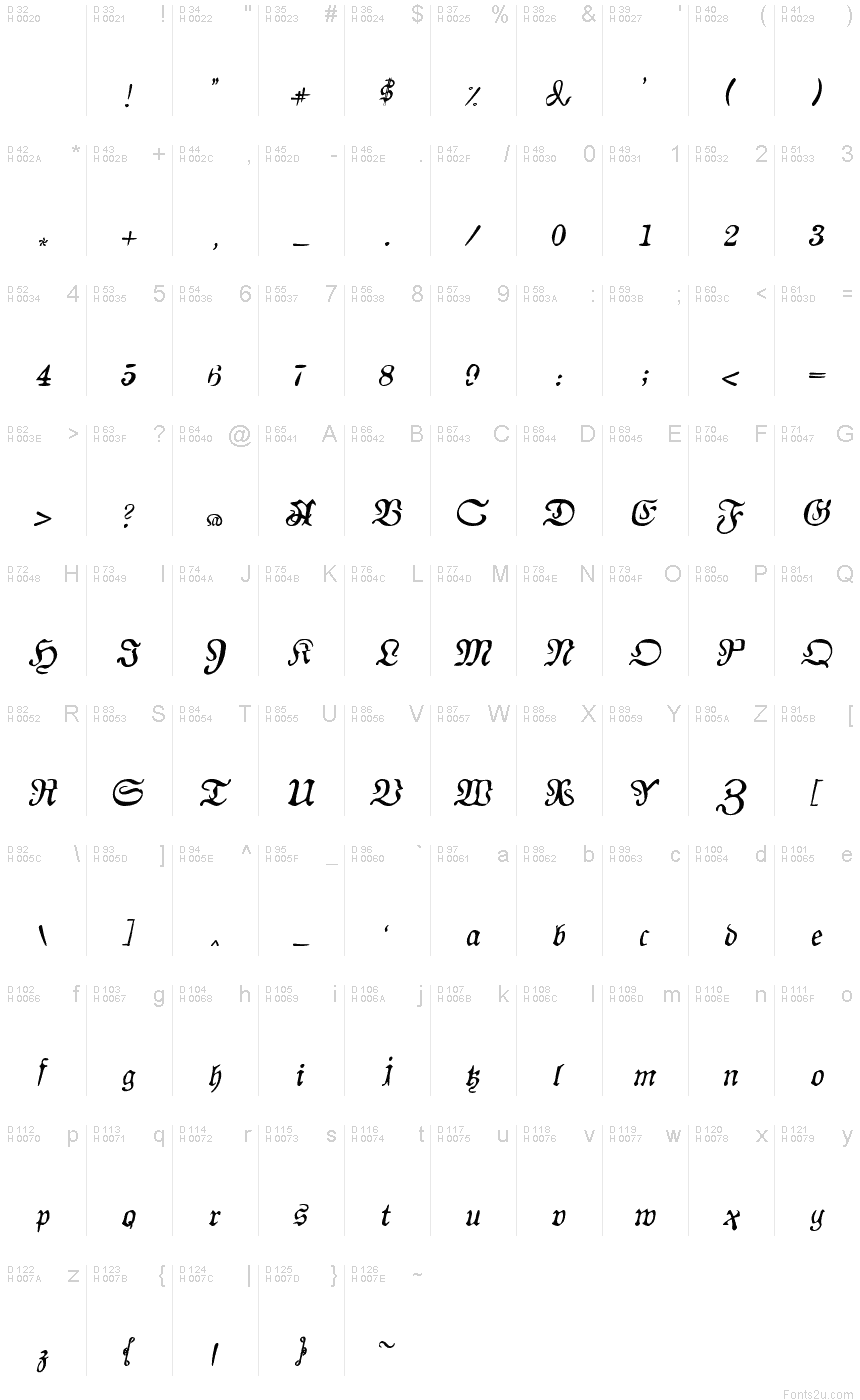
AuldMagick Italic by AgaSilva is a free medieval blackletter font with pronounced calligraphic shaping. Broad, swelling strokes taper into hooked points, and the slanted letters carry long flourishes that give the face a dramatic manuscript character.
Fantasy book covers are its strongest setting, especially for stories of sorcery, folklore, or ancient kingdoms. It also suits theatrical posters and role-playing game graphics. The curling entry strokes and blade-like endings can become part of an illustrated magical emblem, linking the lettering directly to heraldry, spellwork, or ornamental borders.
This Gothic font is based on a 19th-century German poetry book written in Fraktur.